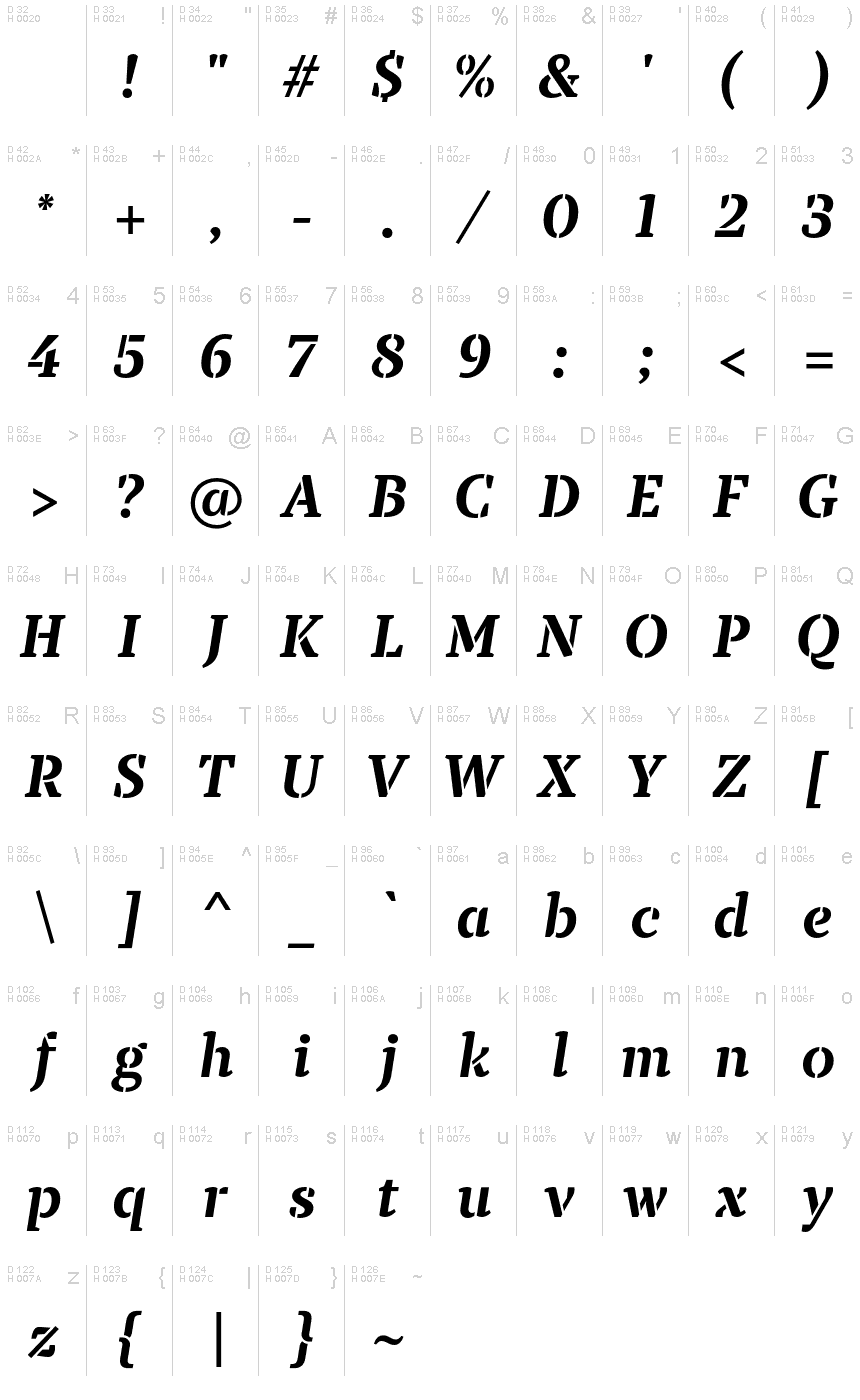
Introducing TT Tricks Stencil Trl Bd It, a bold and striking display font from TypeType! With its unique stencil serif style, this font is perfect for adding a touch of character and personality to any design project. Whether you're crafting eye-catching posters or designing attention-grabbing logos, TT Tricks Stencil Trl Bd It is the perfect choice for any project that demands boldness and creativity. From high-energy sports branding to edgy fashion campaigns, this font is sure to make your message stand out from the crowd. So why wait? Try TT Tricks Stencil Trl Bd It today and take your designs to the next level!
TT Tricks Stencil Trl
Bd It
TypeType: TT Tricks & TT Tricks Stencil Trial: 2018
TT Tricks Stencil Trl Bd It